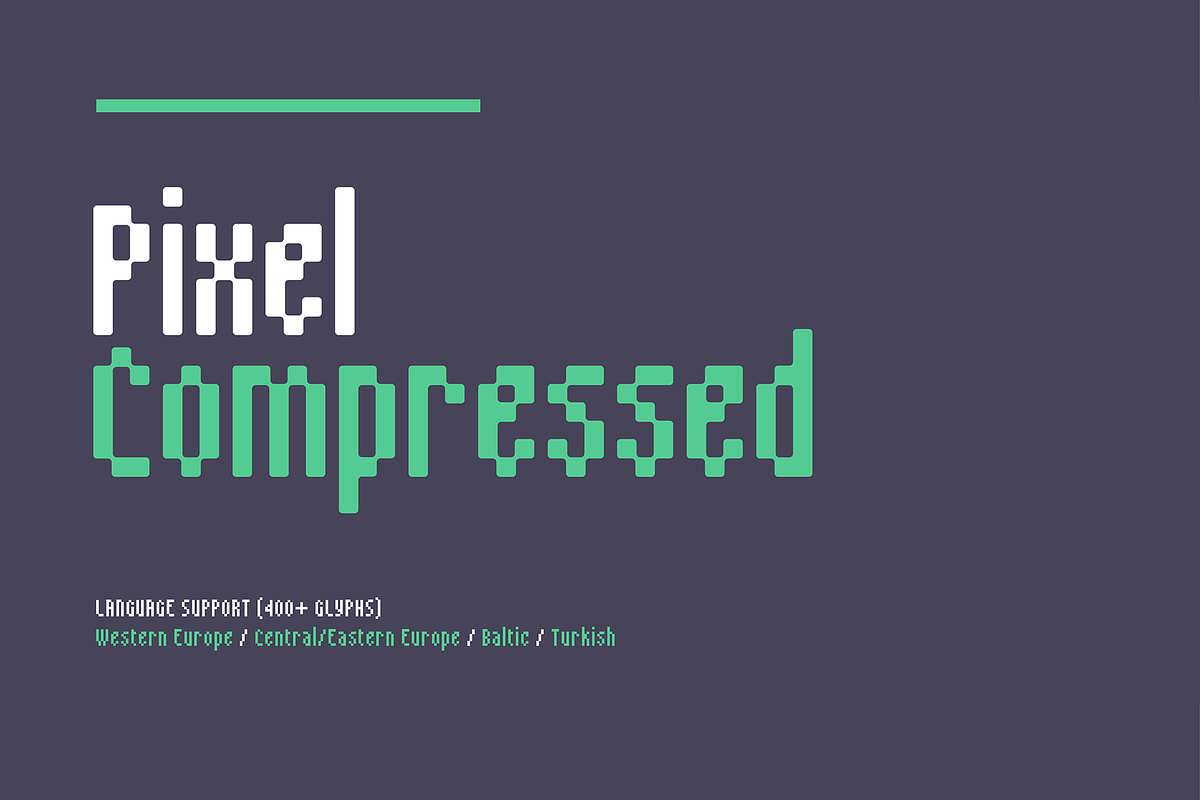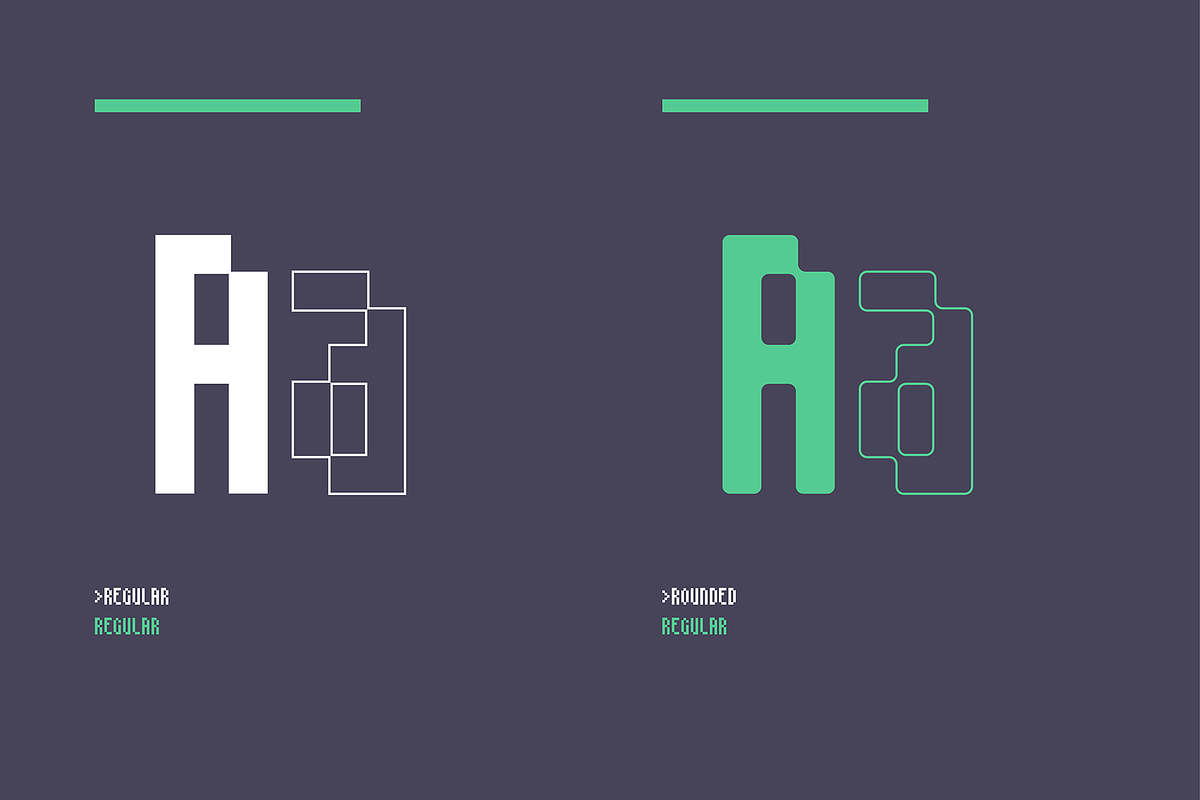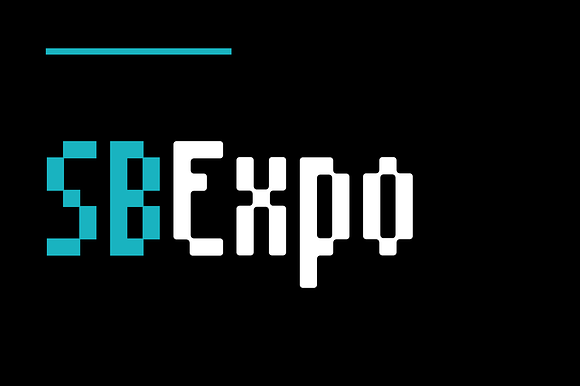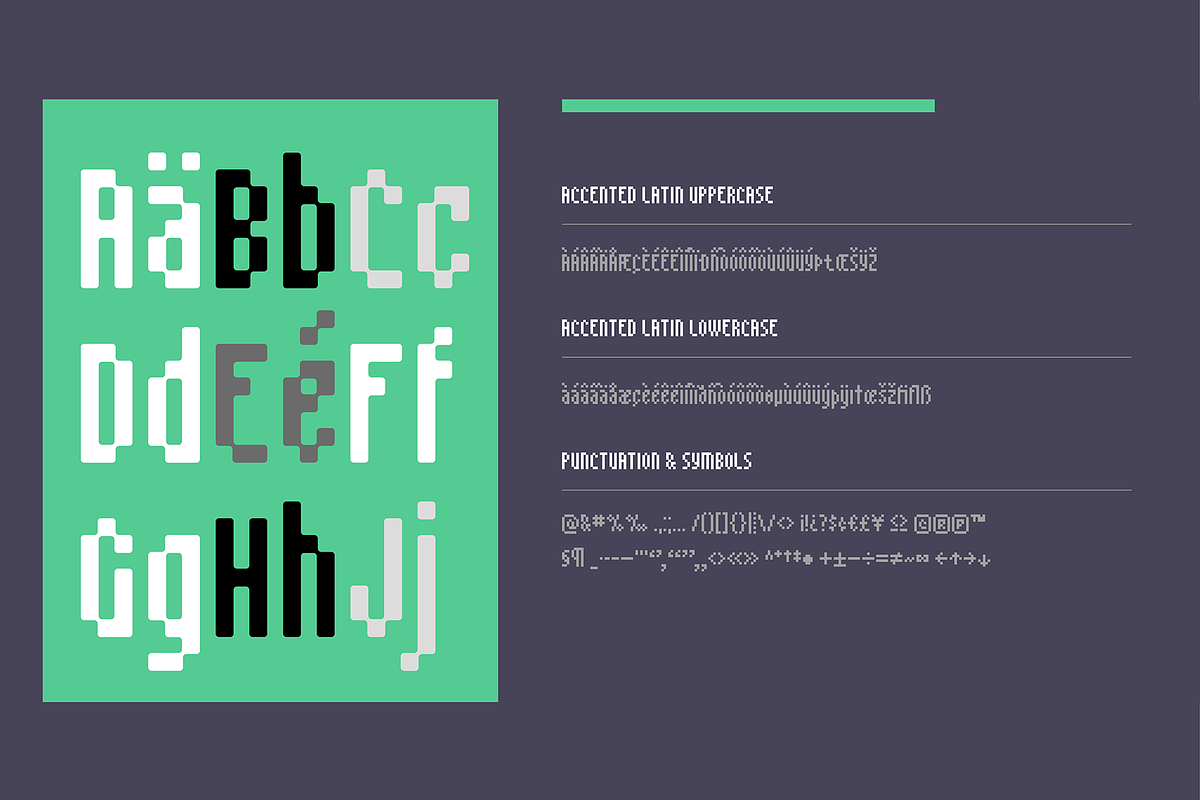
Expo - Pixel Font
Good legibility at small sizes.
Optimised for use as a pixel font at 10px and multiples of 10px.
Each font contains 381 glyphs.
Supports 35 languages.
SB Expo is a condensed pixelfont and retains a high degree of legibility at small sizes. It is intended to be used where space is at a premium, such as in banner adverts and photo credits.
It is optimised for use at 10px but it also works well at 20px as a typeface for subheadings due to its condensed letterforms.
- This font also contains a rounded pixelfont version, opening it up to usage as a display typeface on high-DPI monitors.